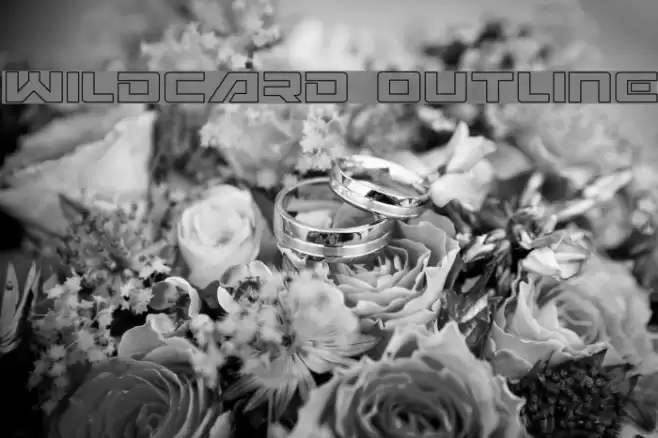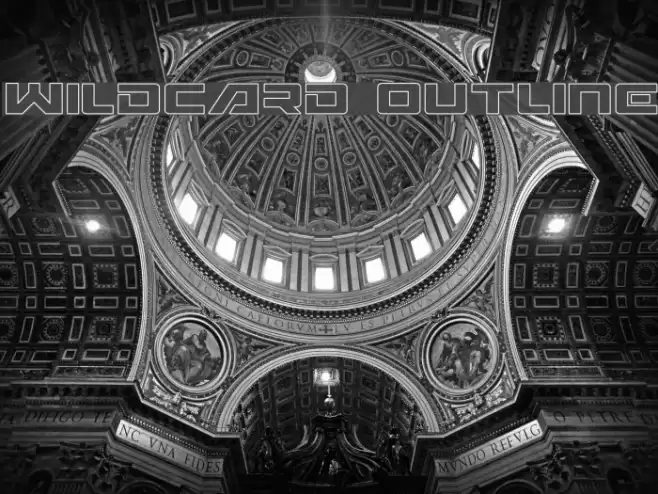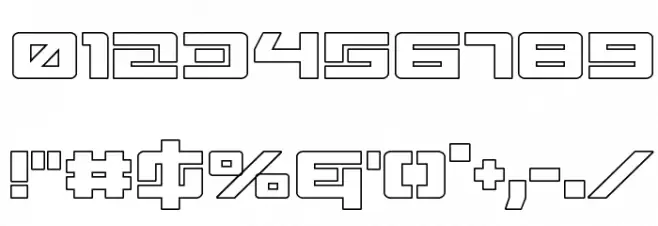
Wildcard Outline Font
Wildcard Outline Description
This font features a bold, geometric outline style that gives it a futuristic and modern appearance. Each character is crafted with precision, using straight lines and sharp angles to create a sense of structure and uniformity. The outline design allows for a unique visual effect, making the characters appear both solid and airy at the same time. This font is highly legible and stands out due to its distinct, clean lines and symmetrical forms. The uppercase and lowercase letters maintain a consistent style, while the numerals and special characters complement the overall design, ensuring versatility in various applications.
A bold, geometric outline font with a futuristic and modern style from Uncategorized fonts.
- Proposed Projects: Ideal for technology branding, sci-fi themed projects, video game titles, and modern posters.